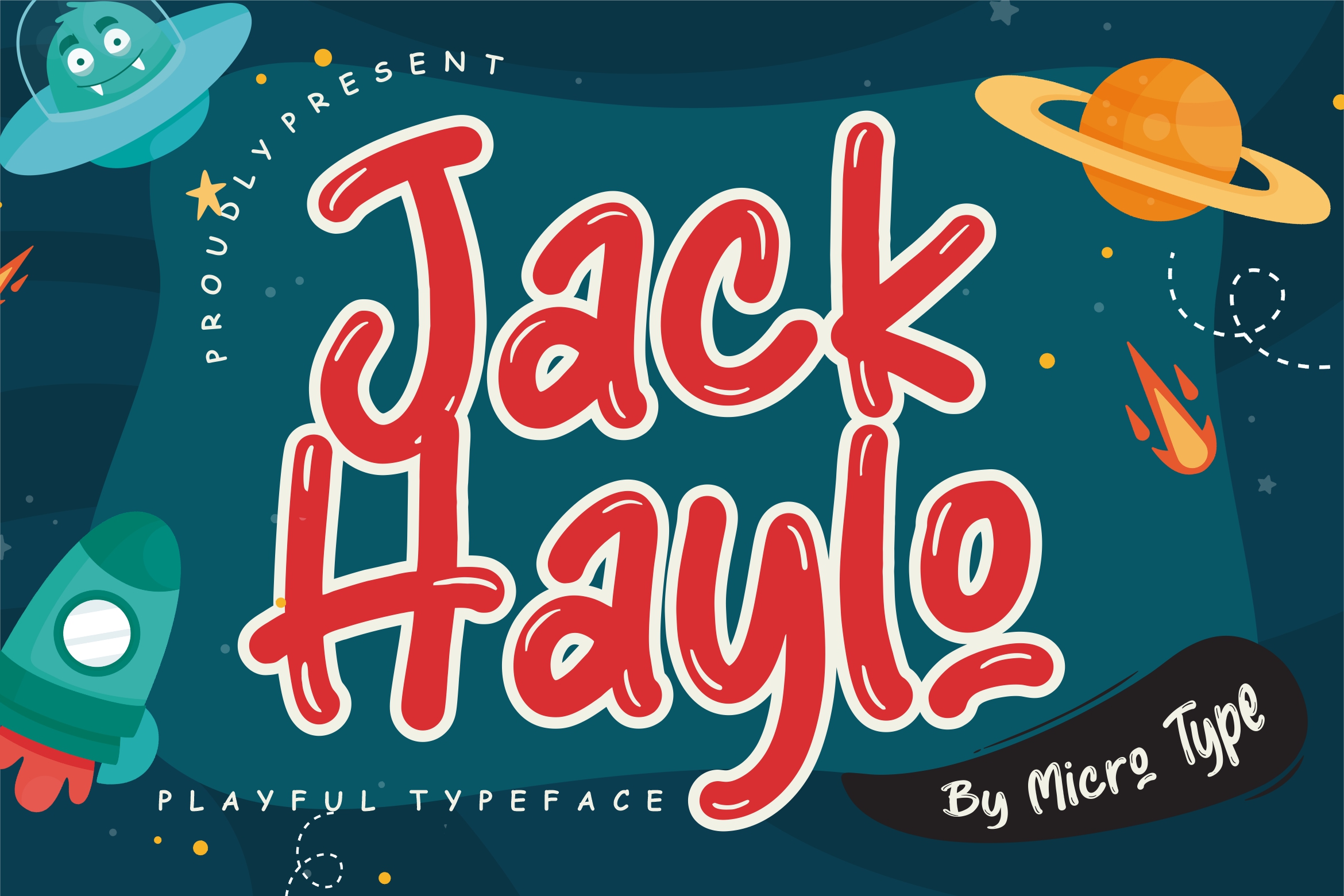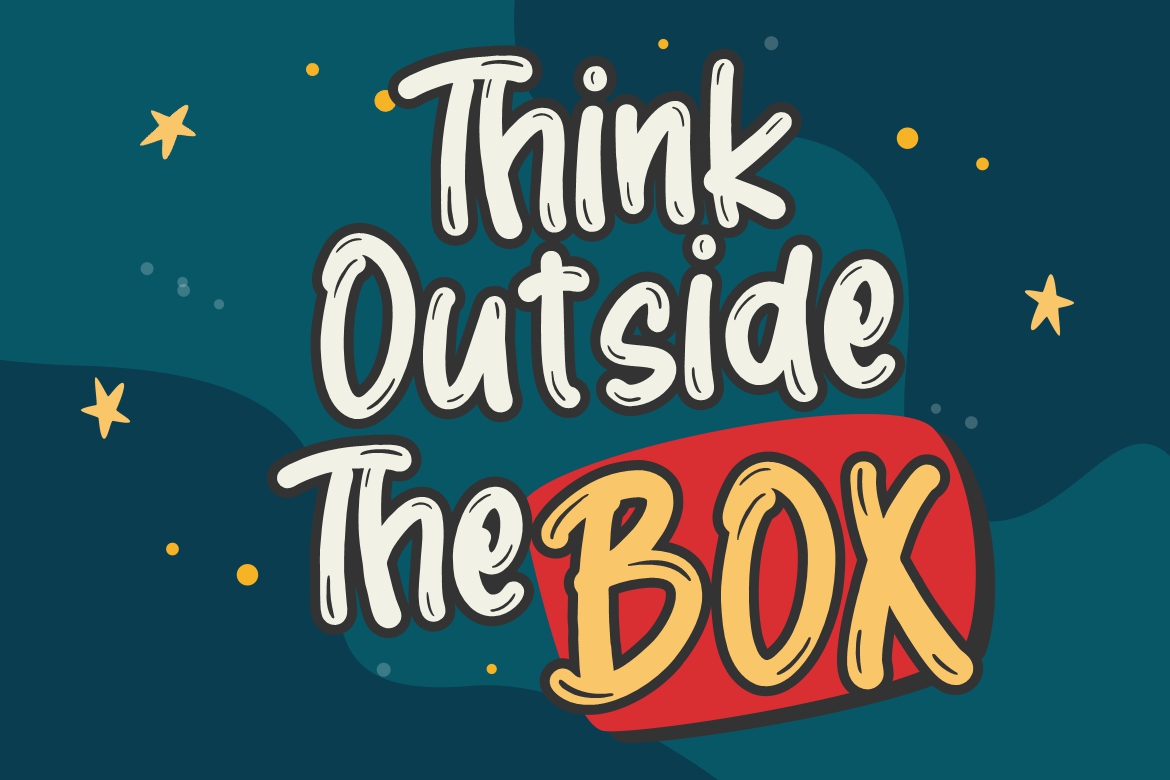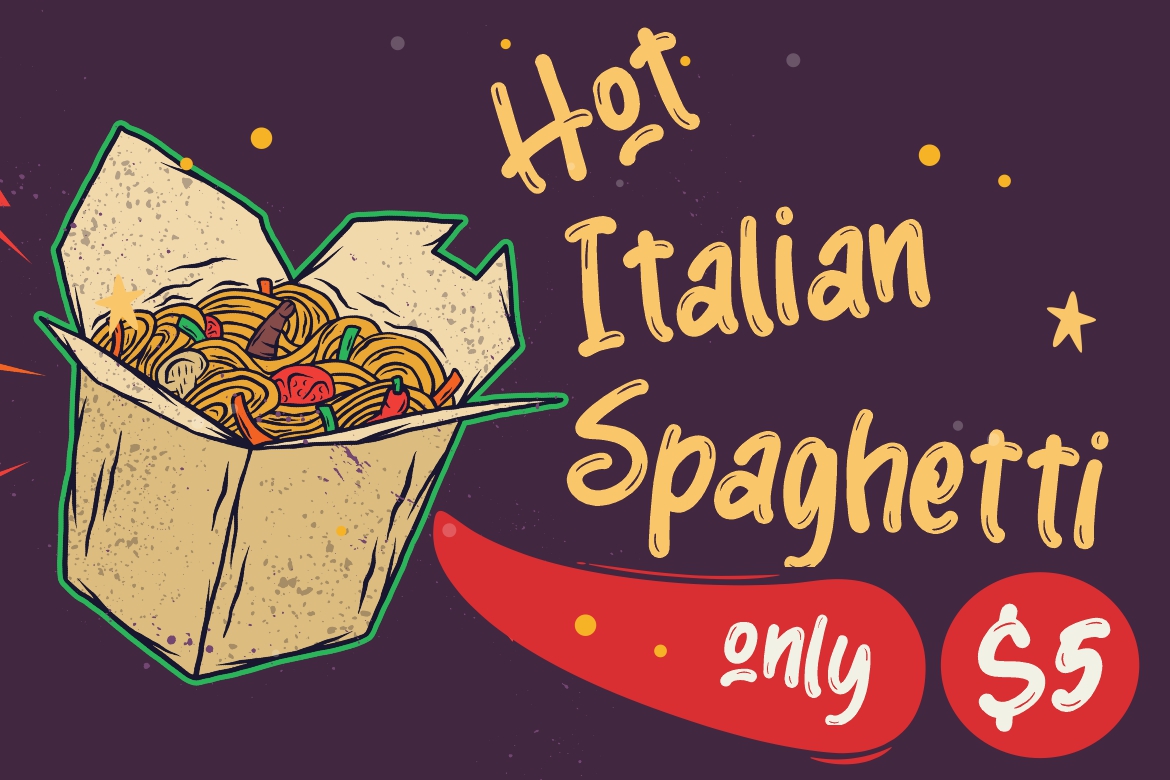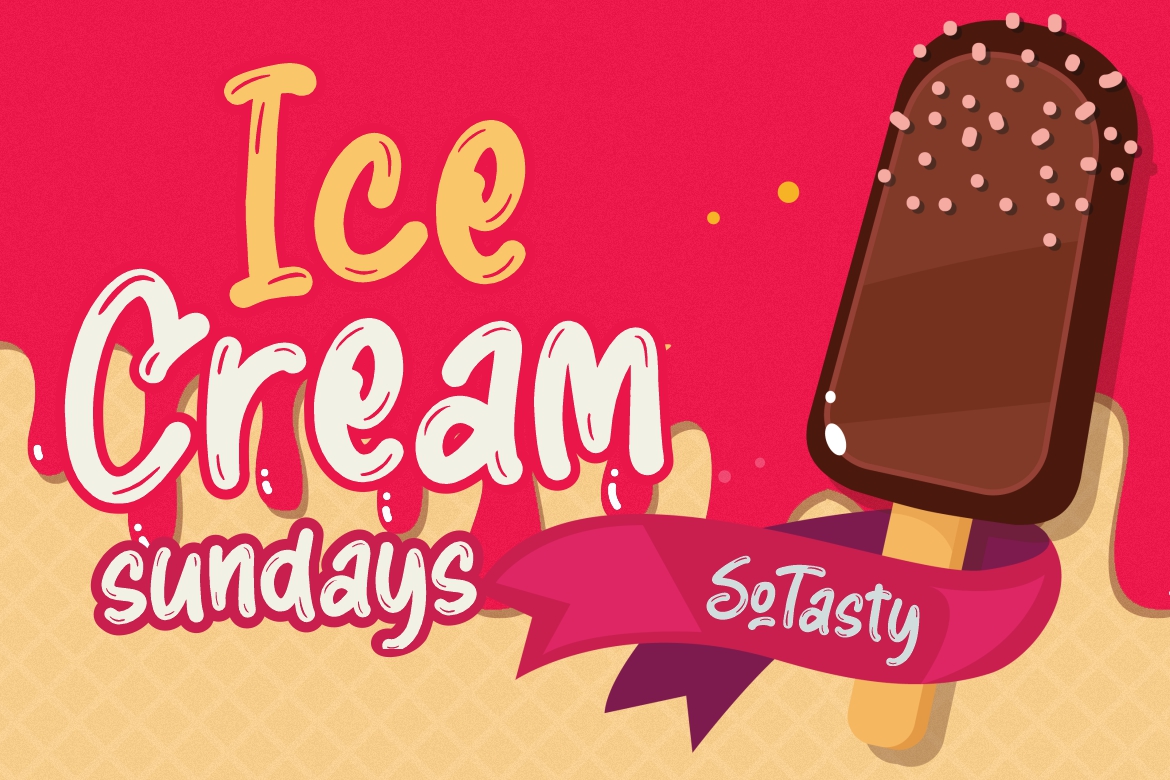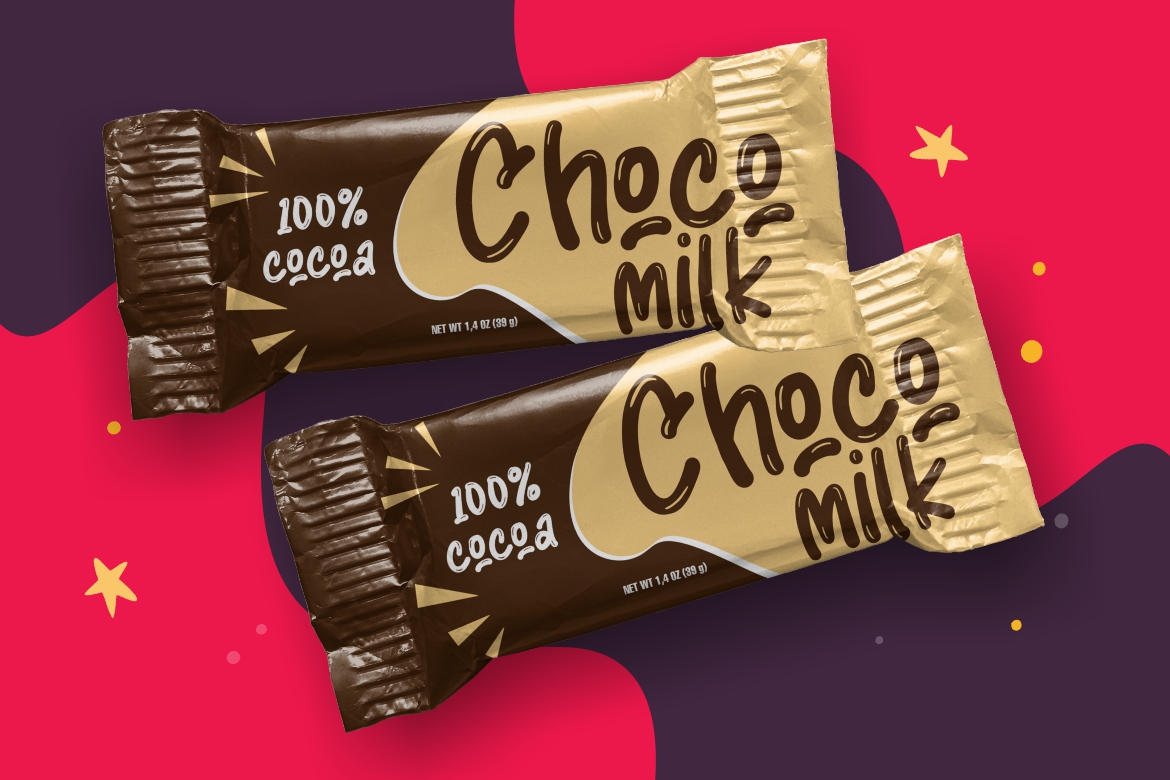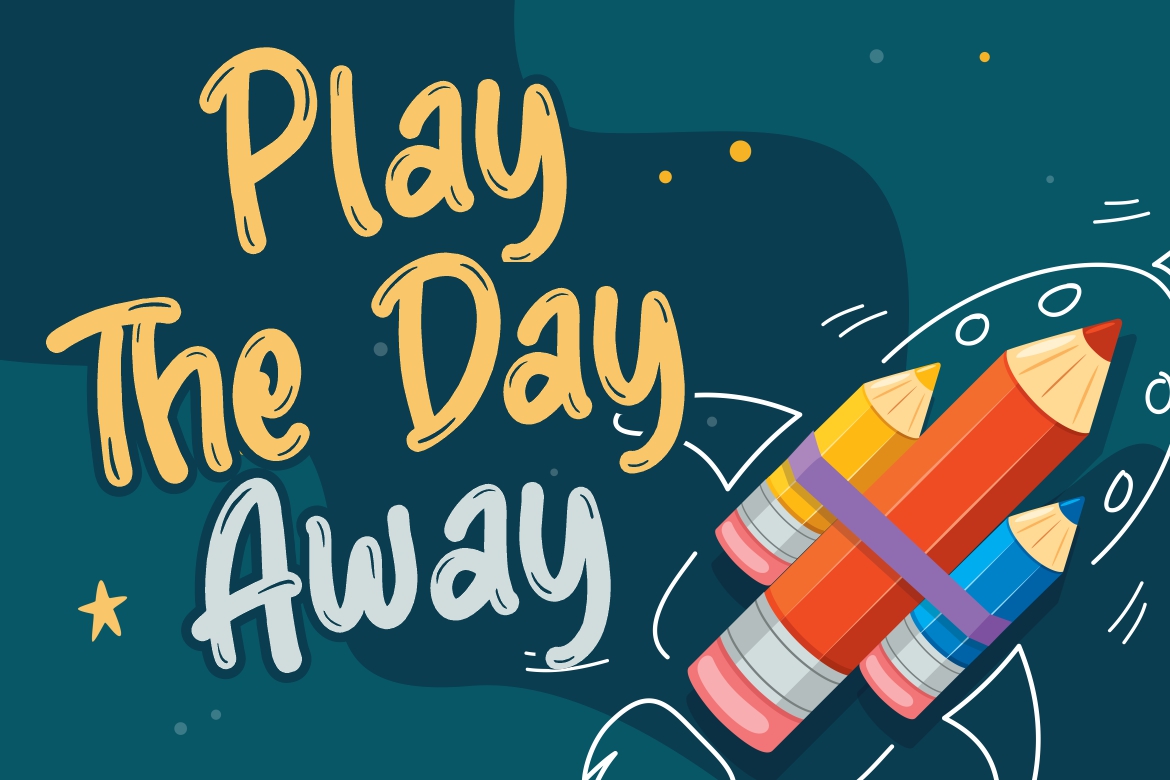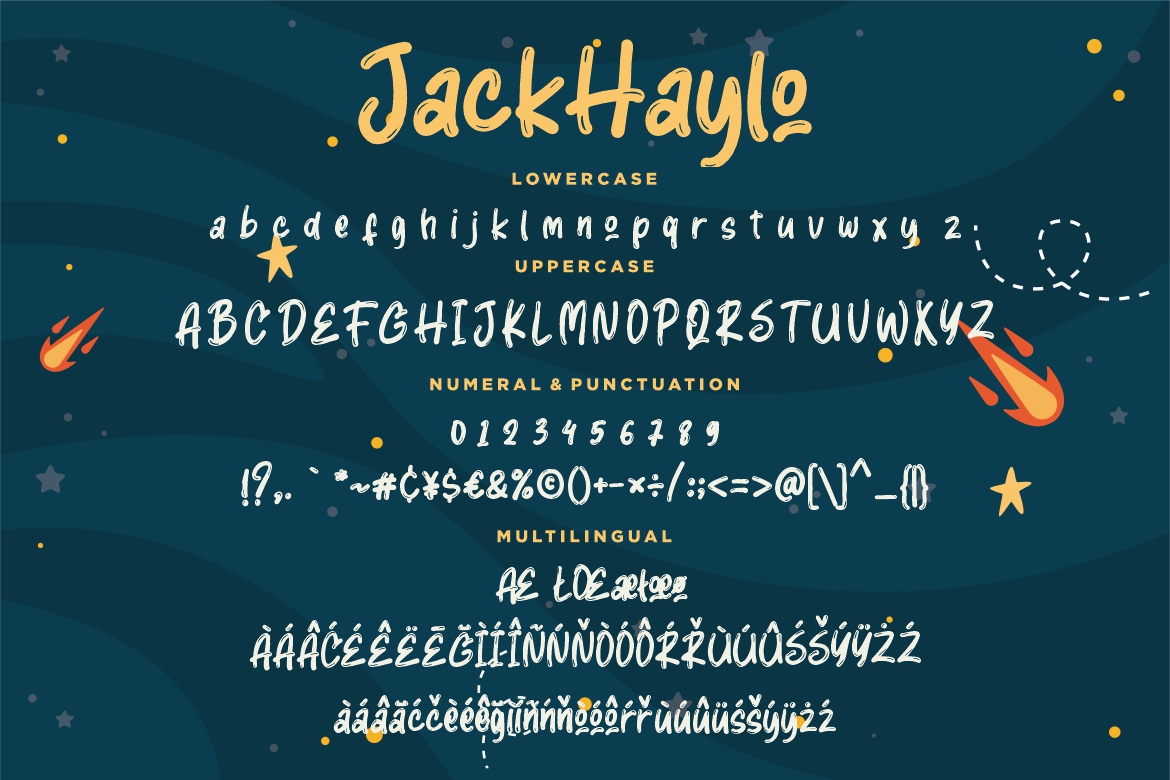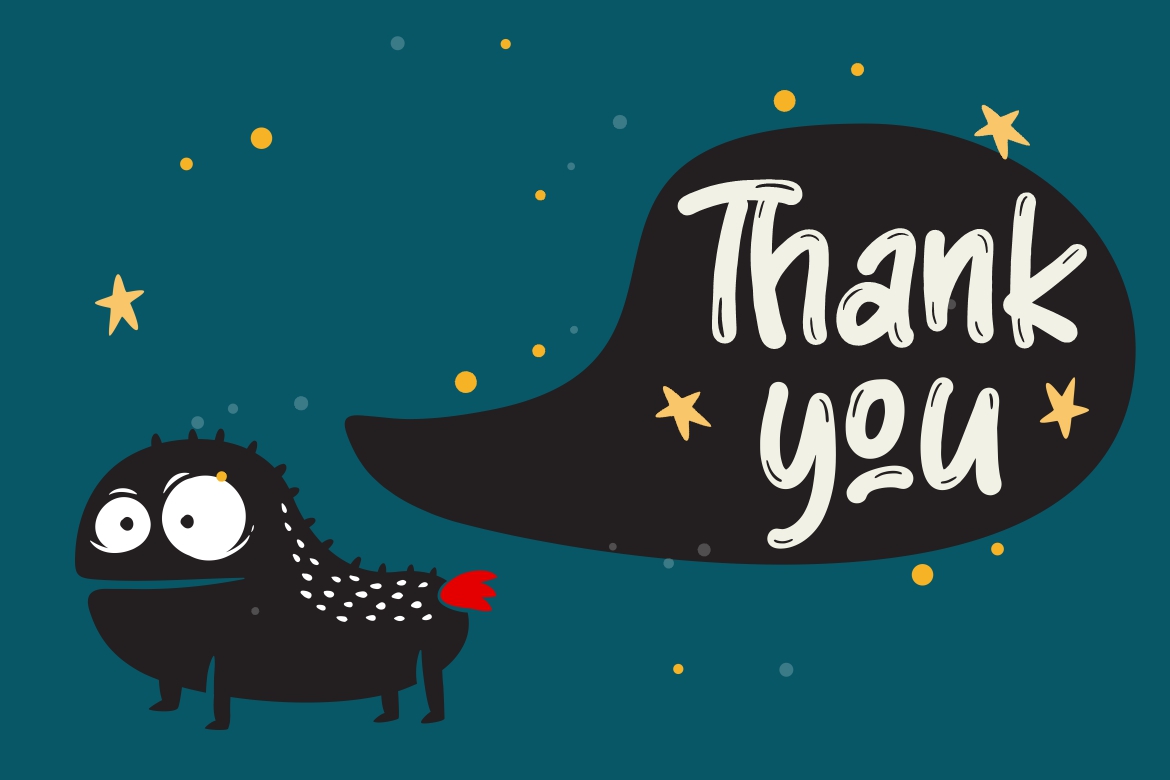
Introducing Jack Haylo – This font made for fun, happy and joyful impression, that will suit for children occasion flyer or poster. The font is perfect for for movie title, logo, blogging, brand identity, book title, social media, branding, wedding invites, cards or simply use it in your next design project and suitable to use for many occasion.
- Fonts include multilingual support for; Afrikaans, Albanian, Czech, Danish, Dutch, English, Estonian, Finnish, French, German, Hungarian, Italian, Latvian, Lithuanian, Norwegian, Polish, Portuguese, Slovak, Slovenian, Spanish, Swedish.
Jack Haylo